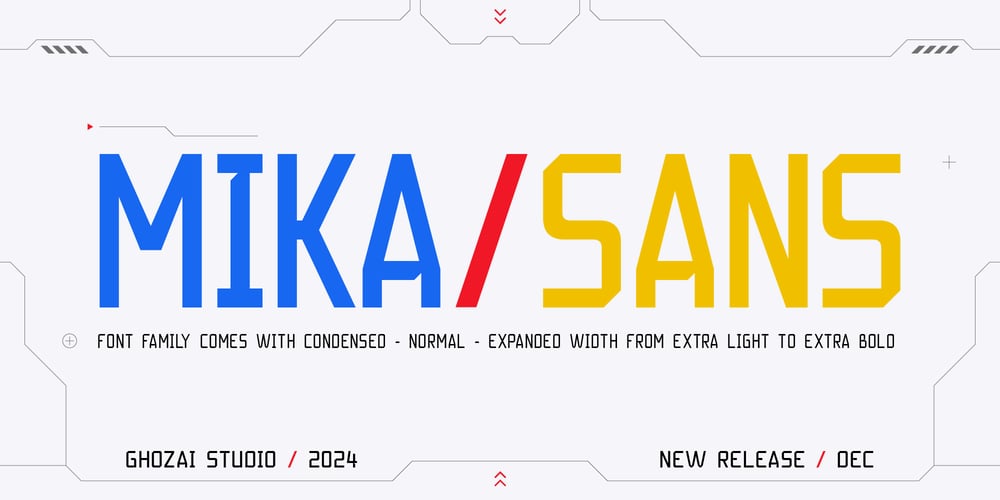
Mika Sans
Mika Sans font
Mika Sans Font Family was designed by Manzur Ghozaali and published by Ghozai Studio. Mika Sans contains 21 styles and family package options. Mika Sans is a striking sans-serif font inspired by geometric shapes, crafted to deliver a polished look and a vibrant personality for all your design projects. This adaptable font shines in many applications, making it perfect for sport, action, futuristic, robotic, and mechanical themes. Mika sans comes with a large style from condensed to expanded and from extra light to extra bold. It gives flexibility to design your needs. Whether creating posters, headlines, logos, or branding materials, Mika sans elevates your designs with its unique and powerful presence